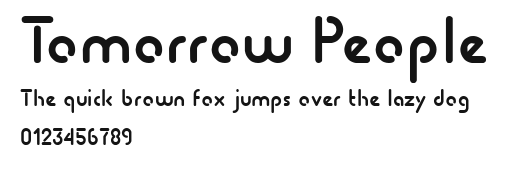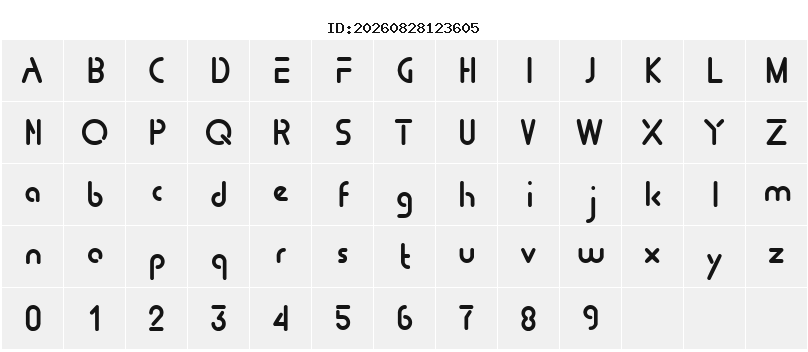
• Font Name: Tomorrow People
• Full Font Name: Tomorrow People
About Tomorrow People.ttf
Tomorrow People.ttf is a modern, elegant sans-serif font designed for ultimate readability and visual harmony. Perfect for branding, headlines, web design, and print materials.